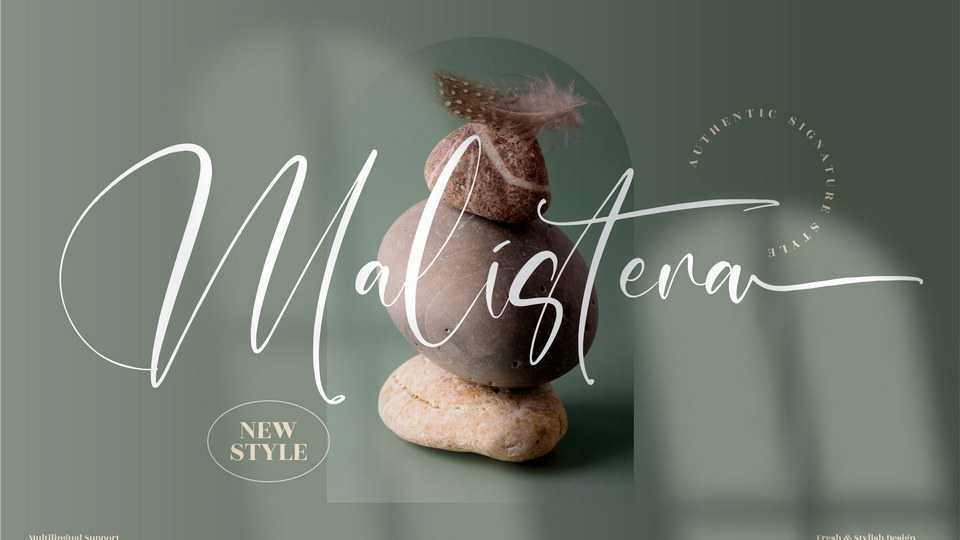
Download Malistera font, a flowing handwritten typeface, described by an elegant touch. Malistera is perfect for your projects with its incredibly distinct and timeless style to create spectacular designs.